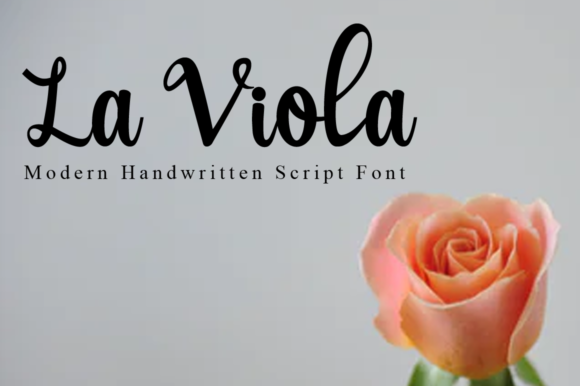
Indulge in the mesmerizing charm of La Viola, a captivating script font designed to elevate your digital presence. Its enchanting curves and delicate strokes will captivate your audience, transforming your website into a visual masterpiece. Experience the magic of typography as La Viola dances across your screen, leaving an unforgettable impression on every visitor. Whether you're crafting eye-catching Instagram posts or adding a touch of elegance to your DIY projects, this font will ignite your creativity and turn your words into a work of art. Embrace the power of La Viola and let its enchanting essence elevate your online presence to new heights.